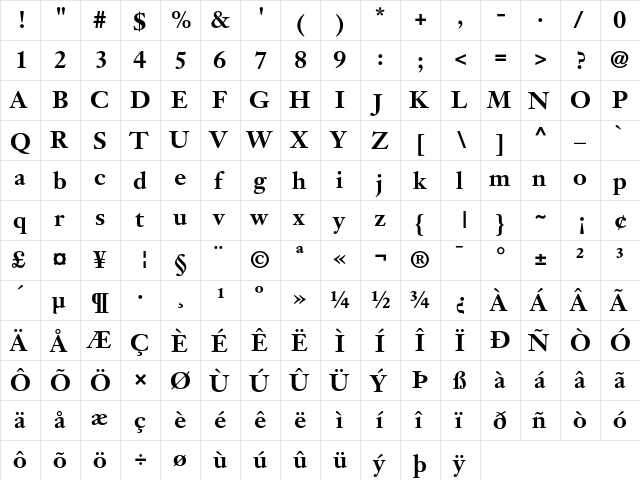
JansonText Regular
Design Context for JansonText Typeface
JansonText offers clean, dependable letterforms without strong stylistic allegiance, making it a practical choice for designers who need flexibility.
Pro Tip: Use JansonText in both headline and body roles to test its range before committing to a single application.